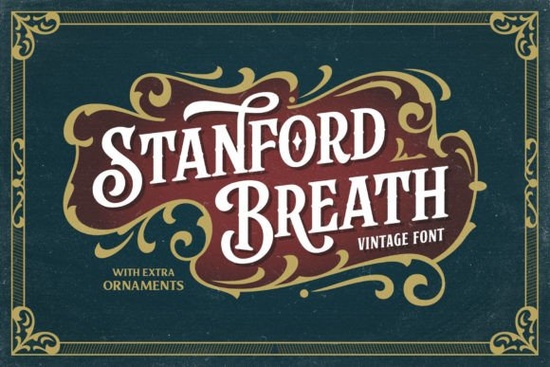
When you want to add old‑world charm to a design, a well‑crafted blackletter font does the job beautifully. The Stanford Breath font brings that exact feeling a vintage Victorian style with distinct, decorative letterforms. It’s PUA encoded, which means every swash and alternate glyph is within easy reach, whether you work in basic design software or professional programs.
What gives Stanford Breath its Victorian character?
The font leans heavily into traditional blackletter proportions, but what makes it feel specifically Victorian is the ornamental detail. You’ll notice:
- High‑contrast strokes – thick vertical stems paired with thin, hairline curves, a hallmark of period poster type.
- Elaborate capital letters – many uppercase characters carry extra flourishes and looping swashes that mimic hand‑lettered engraving.
- Subtle distressed texture – not a full rough edge, but enough to keep the font from looking too digital or sterile.
All of this combines into a typeface that feels equally at home on a vinyl record label or an upscale tea tin. The styling stays true to late‑19th‑century print without becoming impossible to read at small sizes.
How can you use the extra glyphs and swashes?
Because Stanford Breath is PUA encoded, you won’t need advanced design software to reach its hidden characters. Even in a simple text editor that allows a character map, you can copy and paste the swash variants. For crafters using Cricut Design Space or Silhouette Studio, just open a glyph panel or use a free font manager program the alternates all sit in the private‑use area of the Unicode map. This means you get the full decorative set without buying extra software.
Common extras include long tail swashes on select lowercase endings, ornamented uppercase forms, and a handful of ligatures that connect letters smoothly, giving handwritten realism to logo lock‑ups.
Which projects look best with this font?
Stanford Breath suits anyone who needs authentic Victorian personality. Designers and small business owners often reach for it for:
- Wedding invitations and stationery – the romantic, old‑fashioned curves fit vintage paper suites perfectly.
- Branding and logos – breweries, barber shops, bakeries, and boutique clothing lines use similar blackletter to convey heritage.
- Print‑on‑demand merchandise – t‑shirts, tote bags, and mugs sell well with bold, historical‑looking text.
- Product labels and packaging – especially for candles, spices, spirits, or artisan foods where a hand‑crafted feel matters.
- Signage and wall art – the swashes let you create one‑of‑a‑kind decorative quotes.
Does Stanford Breath work with cutting machines and craft projects?
Absolutely. Since the font is PUA encoded and comes in standard .otf and .ttf formats, it imports cleanly into Cricut Design Space, Silhouette Studio, and similar software. The swashes appear as separate characters rather than embedded coding, so you can cut vinyl, heat‑transfer material, or stencil film without missing any detail. Just remember to weld the text before sending it to your machine so the ornaments stay connected.
Practical tip: Before you commit your design to print or vinyl, type a short phrase like “Elegant Evening Soirée” in the font and see how the swashes interact. Adjust the letter‑spacing slightly if flourishes begin to touch this tiny tweak makes the final piece look intentionally hand‑lettered rather than overcrowded.